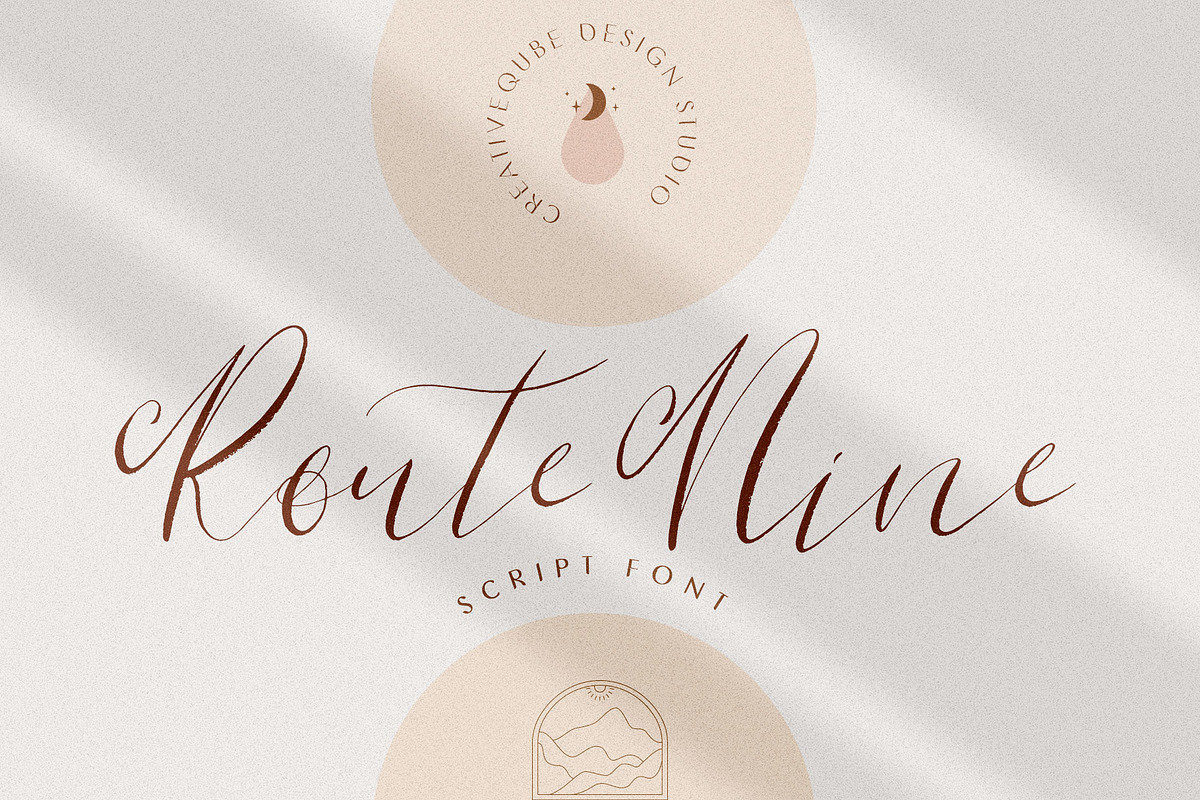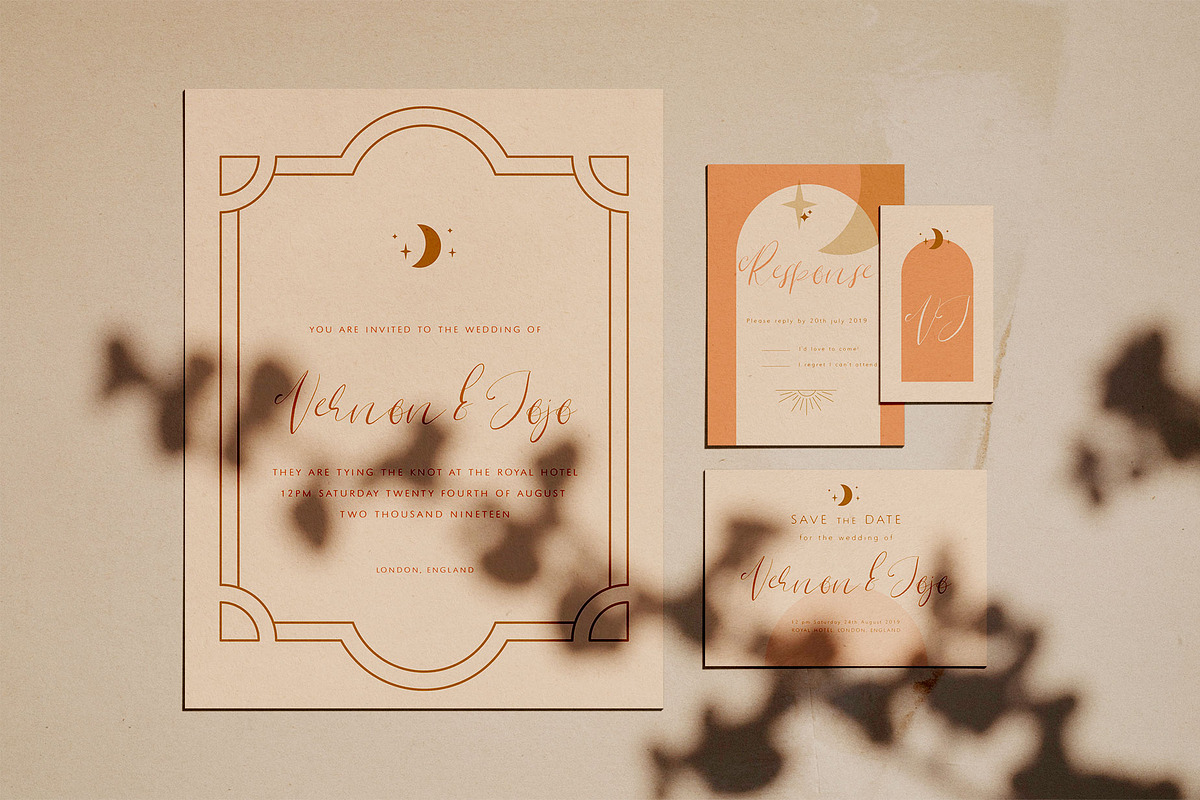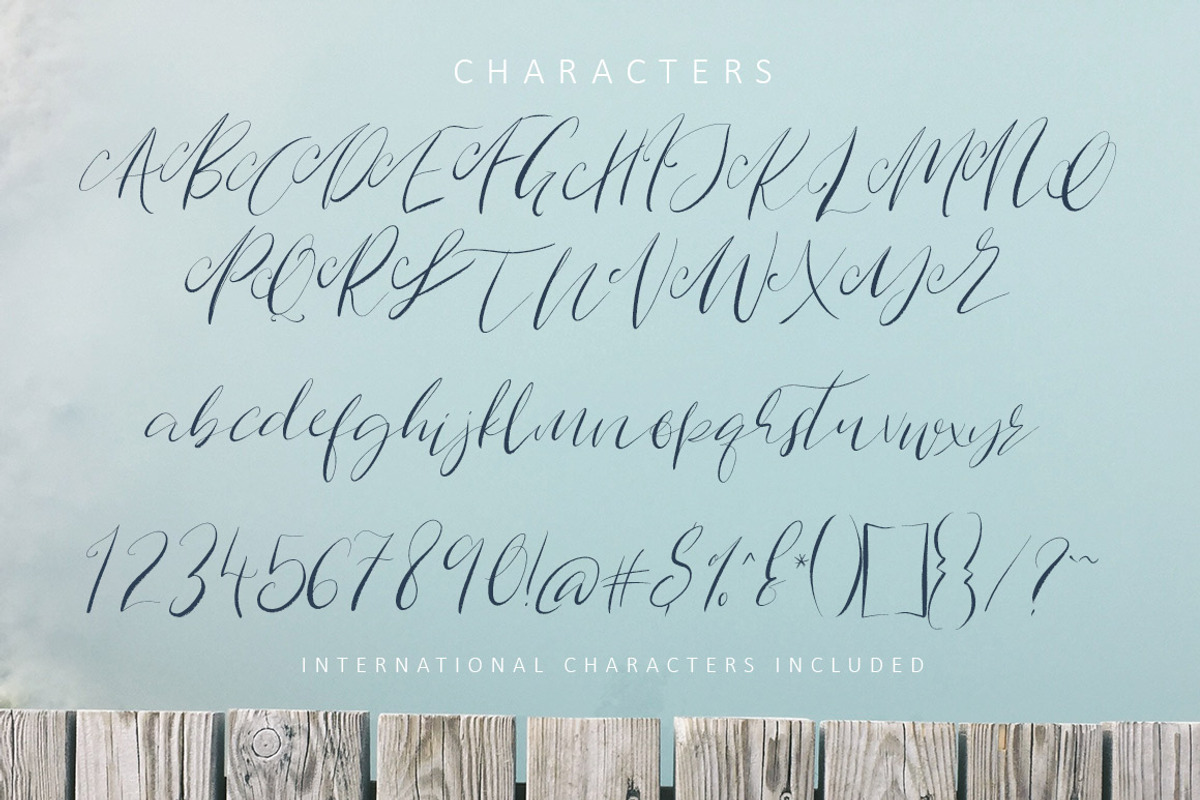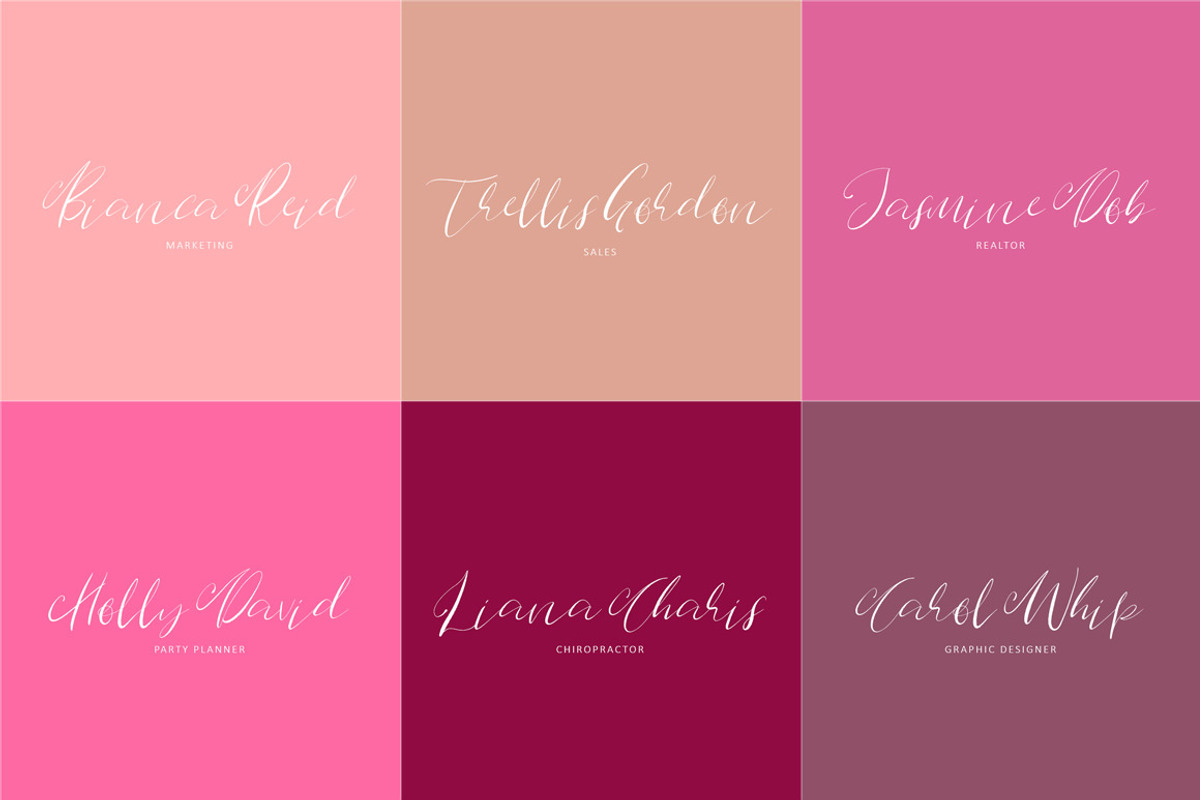
Route Nine Script Font
Introducing Route Nine script font. A hand drawn slim script with scrolls on all uppercase letters.
- International characters included.
Route Nine Script Font by Creativeqube Design fits naturally into Branding, posters, packaging, typography.